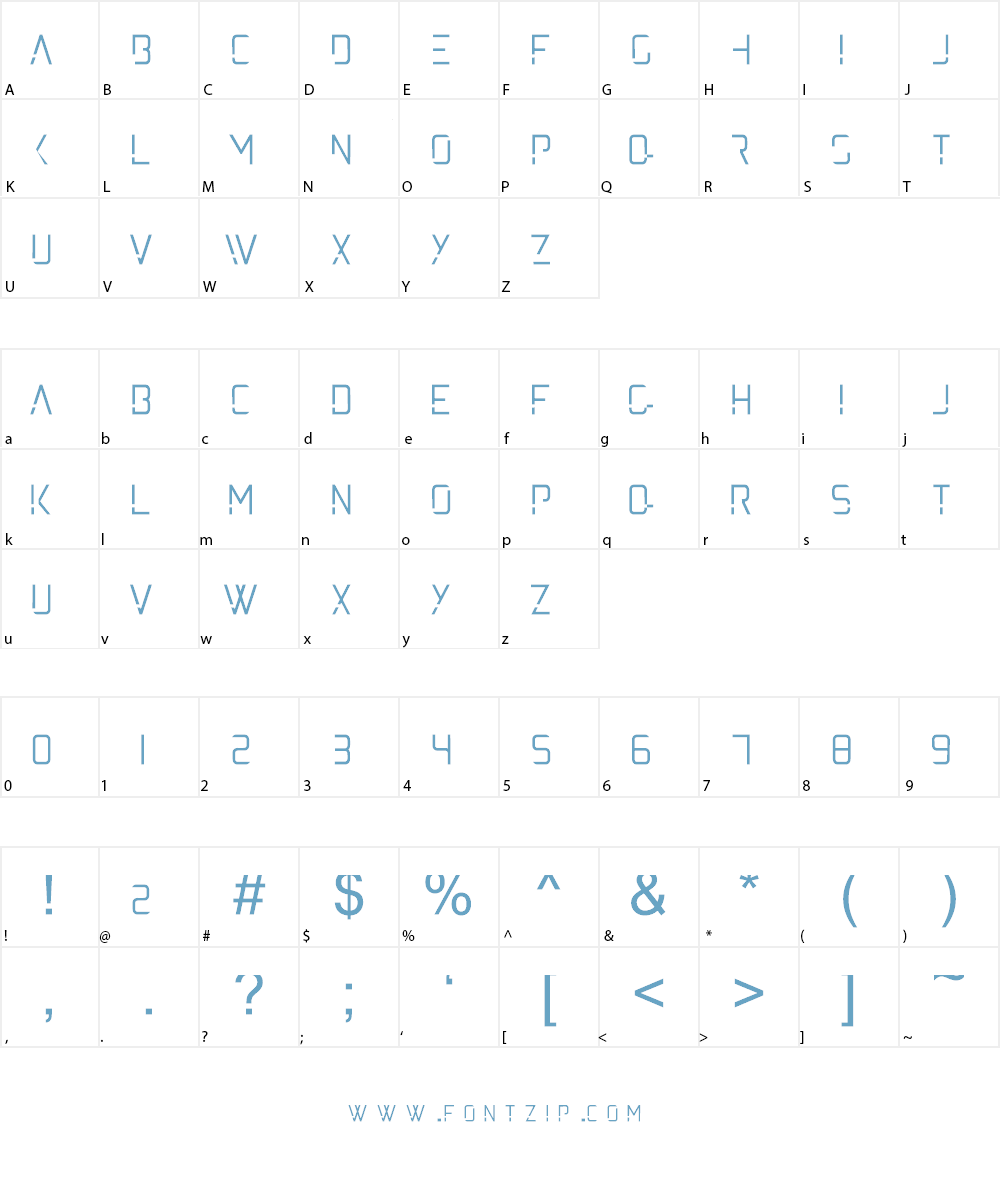
Andromeda Eclipsis is a minimal version of the original “Andromeda” font. Uppercase letters are minimal, missing lines etc, whereas lowercase letters are more “readable” and on the conservative side.